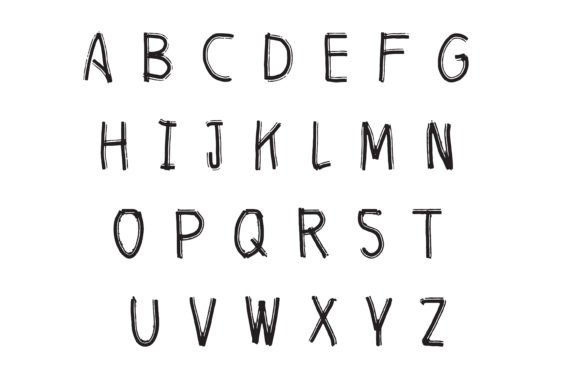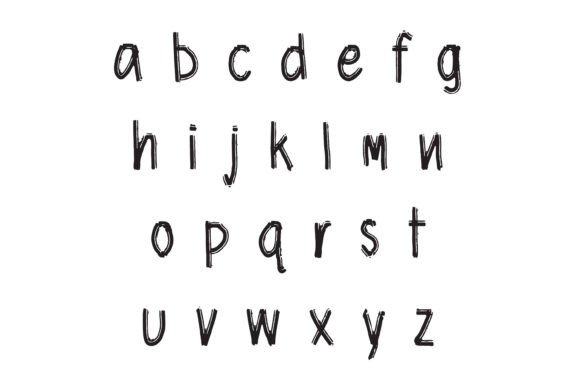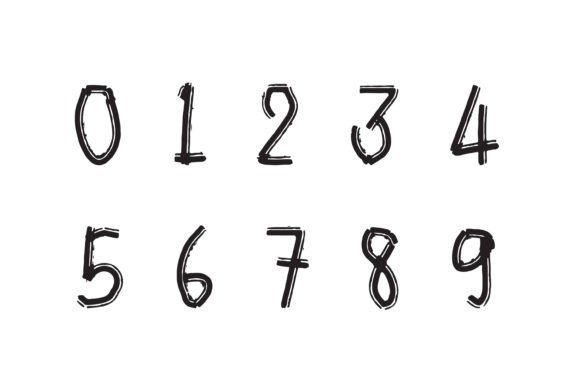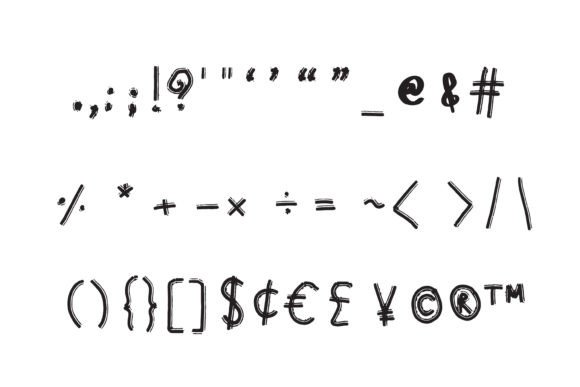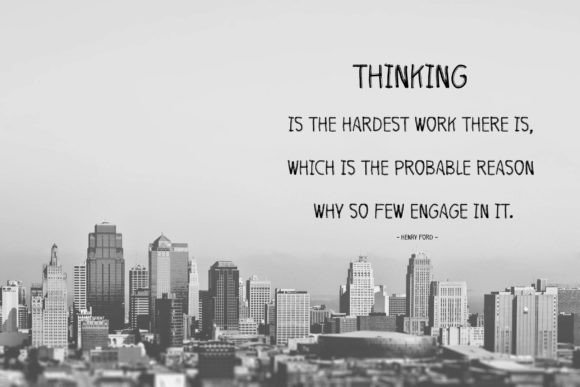
Doga Font: A Creative Display Font for Informal Text and Crafting
Are you a designer or crafter looking for a unique and creative font to add a personal touch to your projects? Look no further than Doga Font, a display font that is perfect for informal text and quotes on products like mugs, shirts, and more. In this article, we’ll dive into the features and benefits of Doga Font, and explore how it can elevate your designs and crafting projects.
What is Doga Font?
Doga Font is a display font designed to make a statement. Its creative and playful design makes it ideal for informal text, quotes, and phrases on products like mugs, shirts, tote bags, and other craft projects. The font’s unique style is sure to grab attention and add a personal touch to your designs.
Key Features of Doga Font
- Creative and Playful Design: Doga Font features a unique and creative design that is perfect for adding a personal touch to your projects.
- Suitable for Informal Text: This font is designed for informal text, making it perfect for quotes, phrases, and short sentences on products like mugs, shirts, and more.
- Display Font: Doga Font is a display font, making it perfect for headlines, titles, and short text on products and craft projects.
- Easy to Read: Despite its creative design, Doga Font is easy to read, making it perfect for use on a variety of products.
Benefits of Using Doga Font
So why choose Doga Font for your design or crafting project? Here are just a few benefits of using this creative display font:
- Adds a Personal Touch: Doga Font’s unique design adds a personal touch to your projects, making them stand out from the crowd.
- Perfect for Crafting: This font is perfect for crafters who want to add a creative touch to their projects, from mugs and shirts to tote bags and more.
- Easy to Use: Doga Font is easy to use and can be easily integrated into your design or crafting project.
- Versatile: This font can be used on a variety of products, from paper crafts to fabric and more.
Using Doga Font in Your Design or Crafting Project
So how can you use Doga Font in your design or crafting project? Here are a few ideas to get you started:
- Mugs and Shirts: Add a quote or phrase to a mug or shirt using Doga Font for a unique and personalized gift.
- Tote Bags and Fabric: Use Doga Font to add a creative touch to tote bags, fabric, and other textile projects.
- Paper Crafts: Add a personal touch to your paper crafts, from cards and invitations to scrapbook pages and more.
- Signs and Decor: Use Doga Font to create unique signs and decor for your home or office.
Tips and Tricks for Using Doga Font
Here are a few tips and tricks for using Doga Font in your design or crafting project:
- Experiment with Colors: Doga Font looks great in a variety of colors, so don’t be afraid to experiment and find the perfect color for your project.
- Keep it Simple: While Doga Font is creative and playful, it’s best to keep your text simple and easy to read.
- Use it Sparingly: Doga Font is a display font, so use it sparingly to add emphasis and create visual interest.
| Font Name | Doga Font |
| Author | Simple Font |
Doga Font is a creative and playful display font that is perfect for informal text and quotes on products like mugs, shirts, and more. With its unique design and easy-to-read style, it’s a great choice for designers and crafters looking to add a personal touch to their projects. Whether you’re creating a gift, decorating your home, or working on a paper craft, Doga Font is a great choice. So why not give it a try and see how it can elevate your designs and crafting projects?